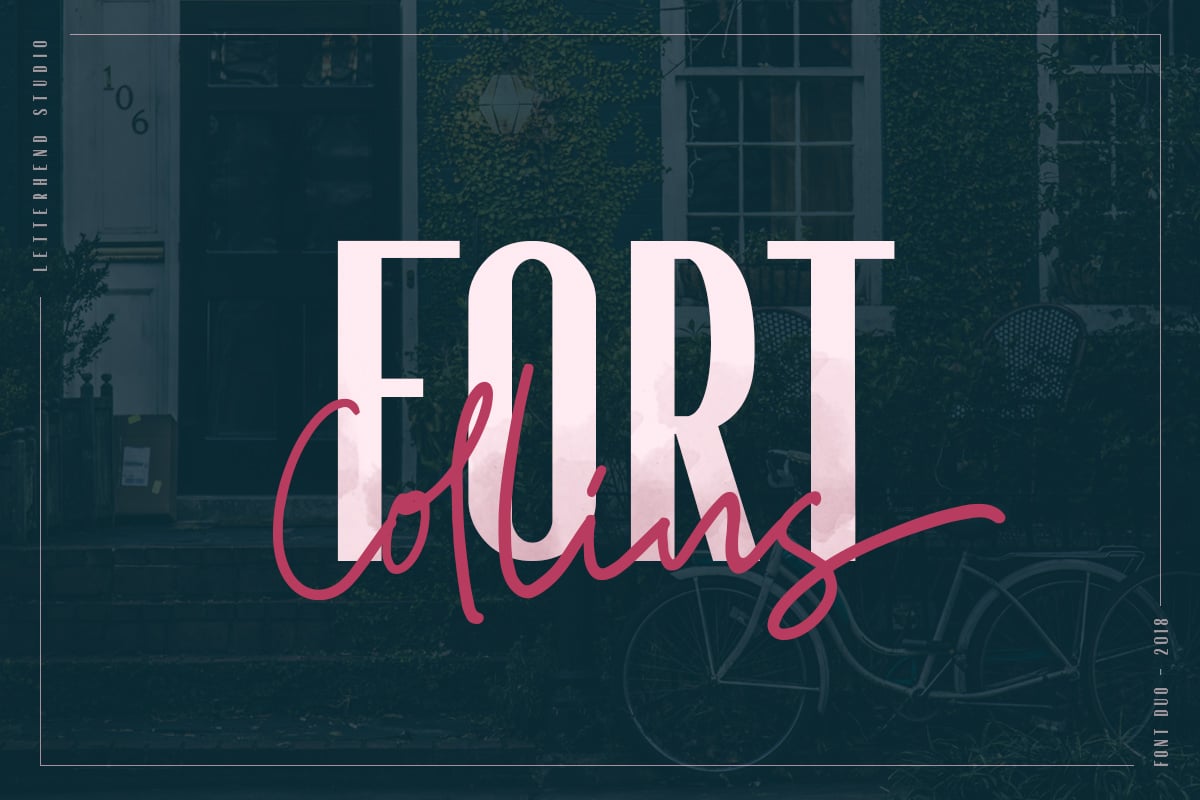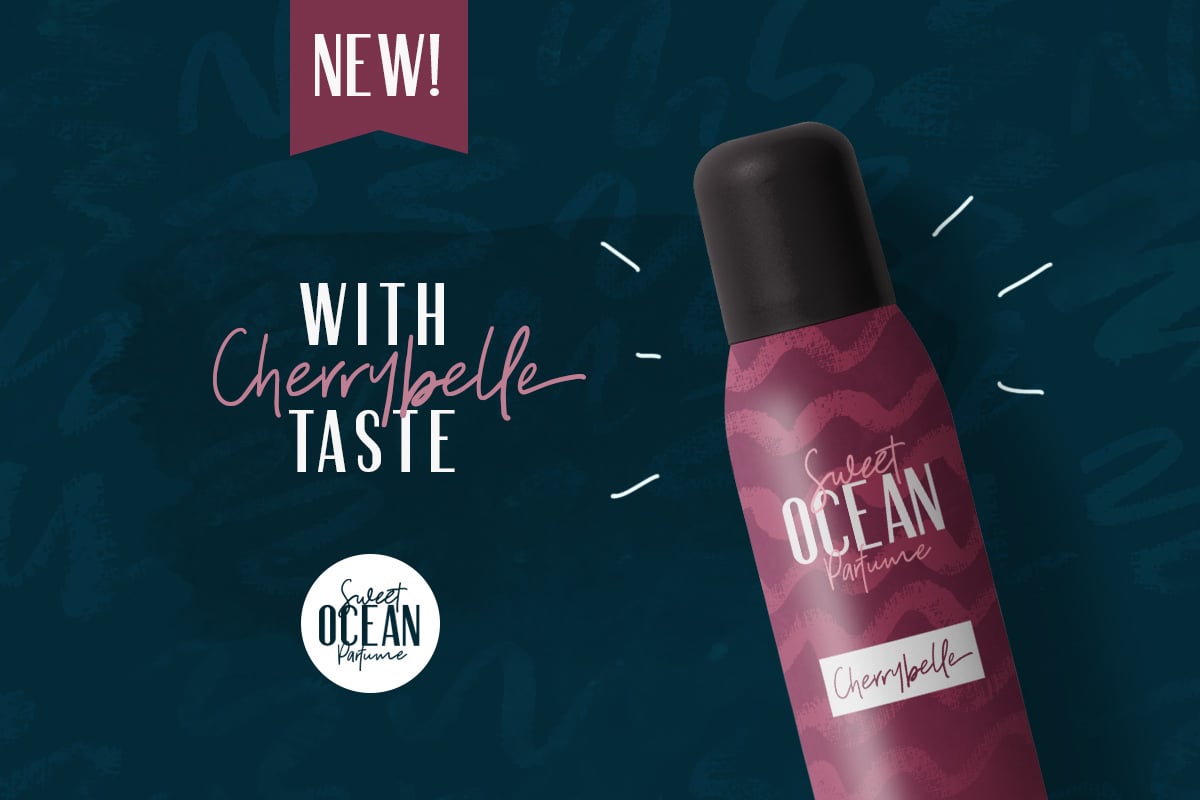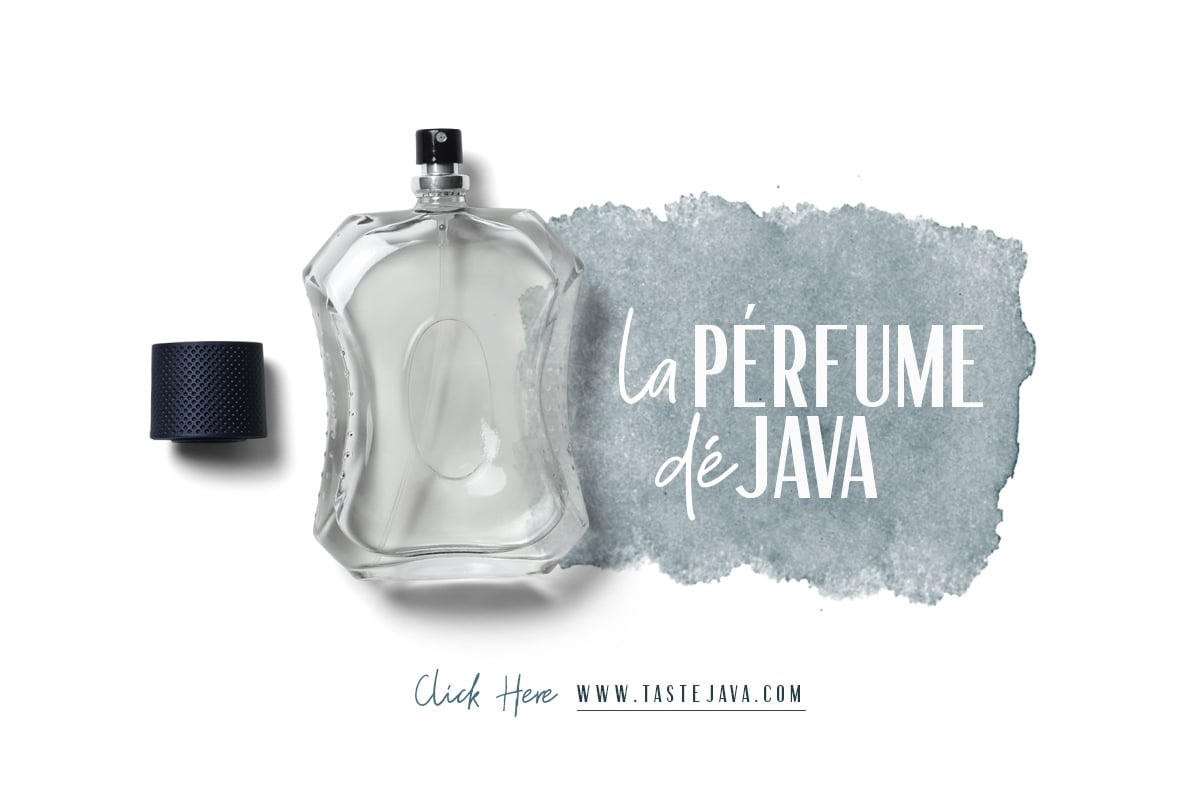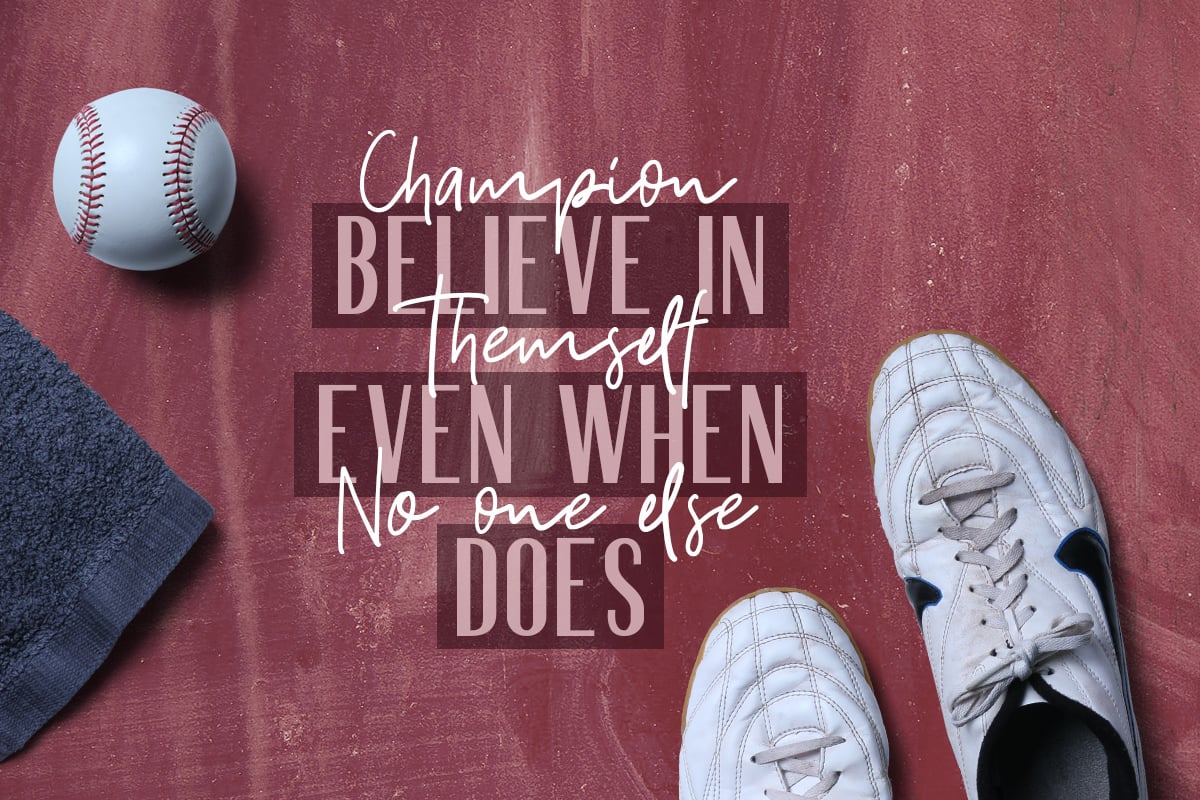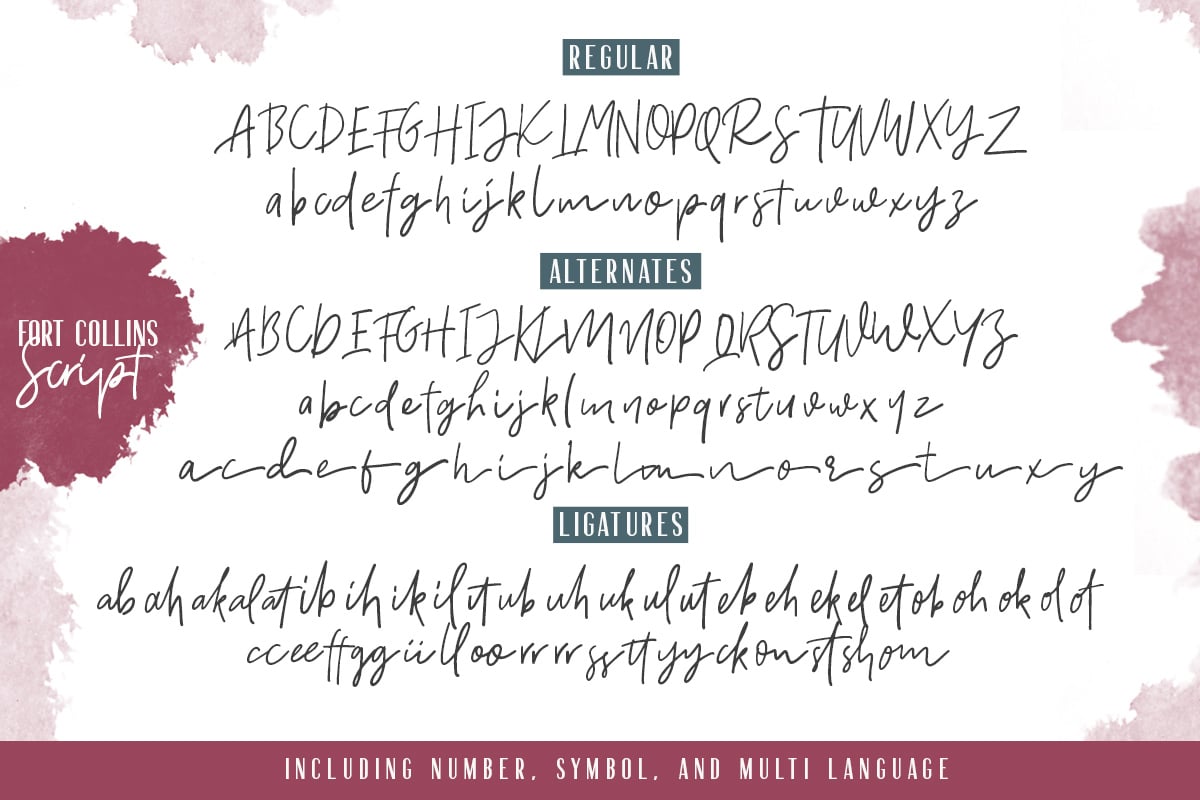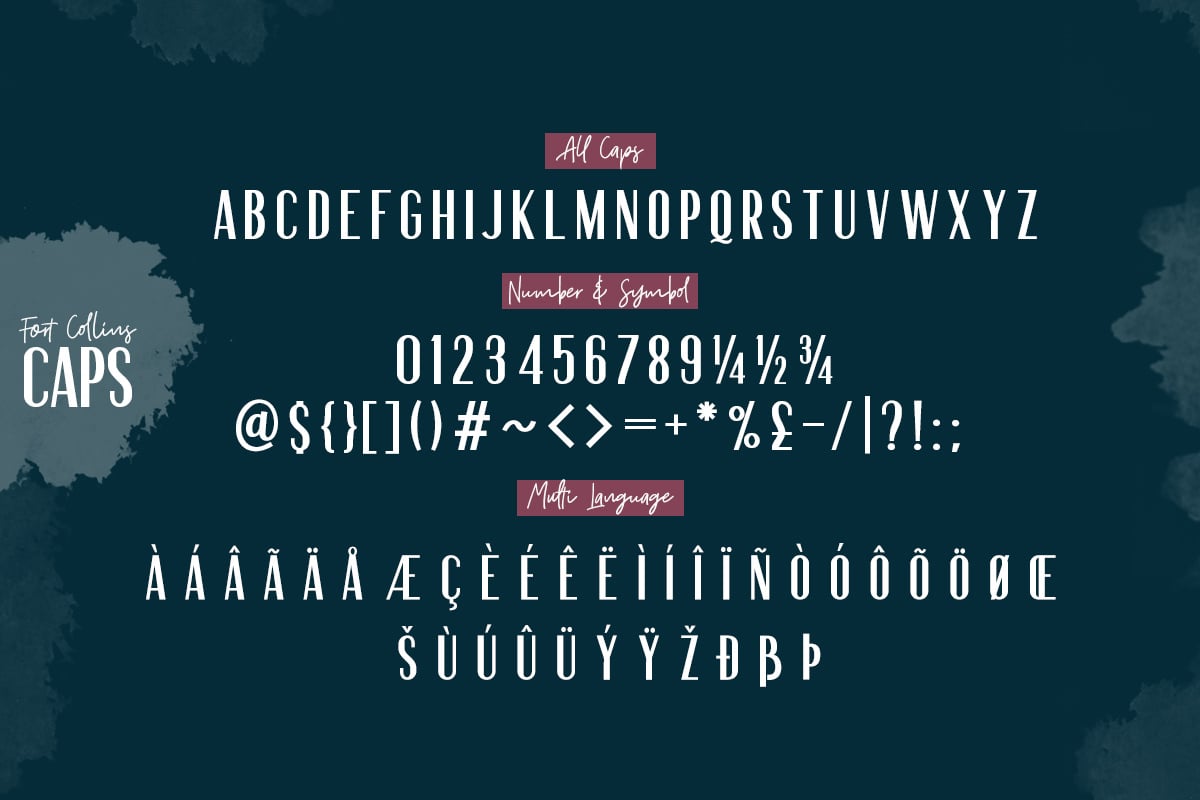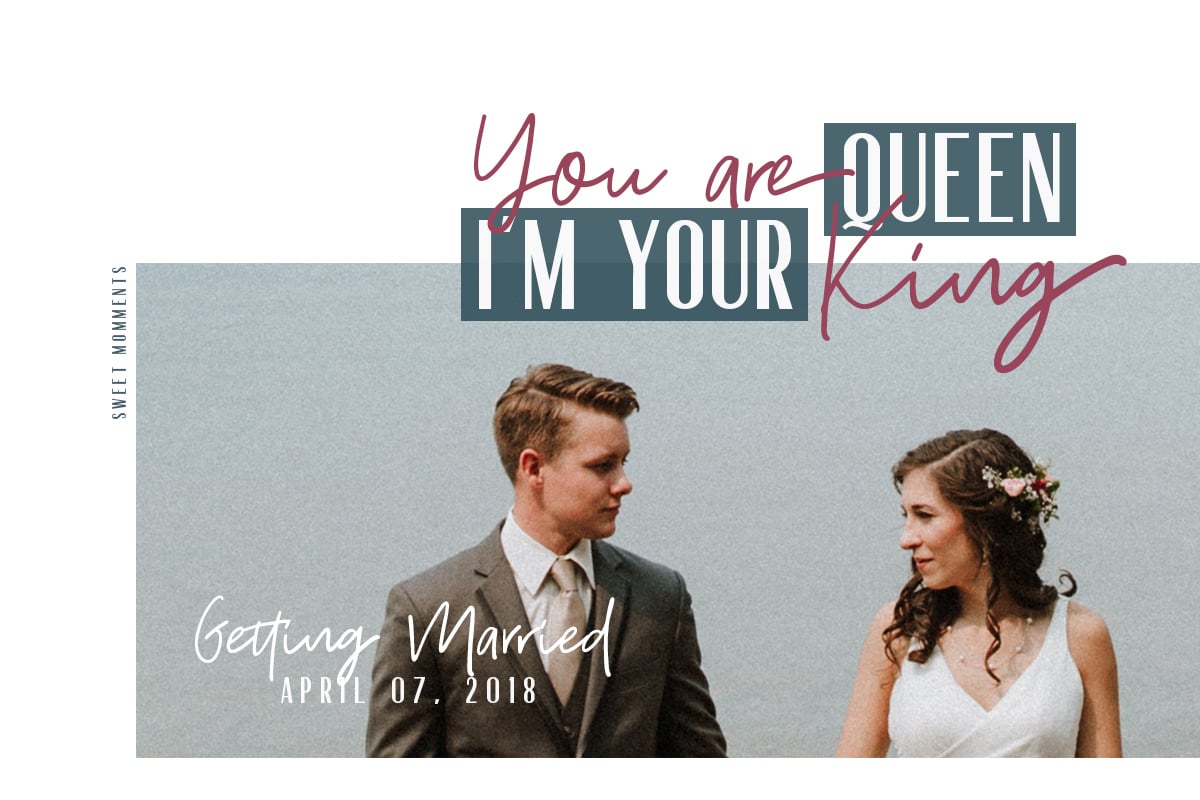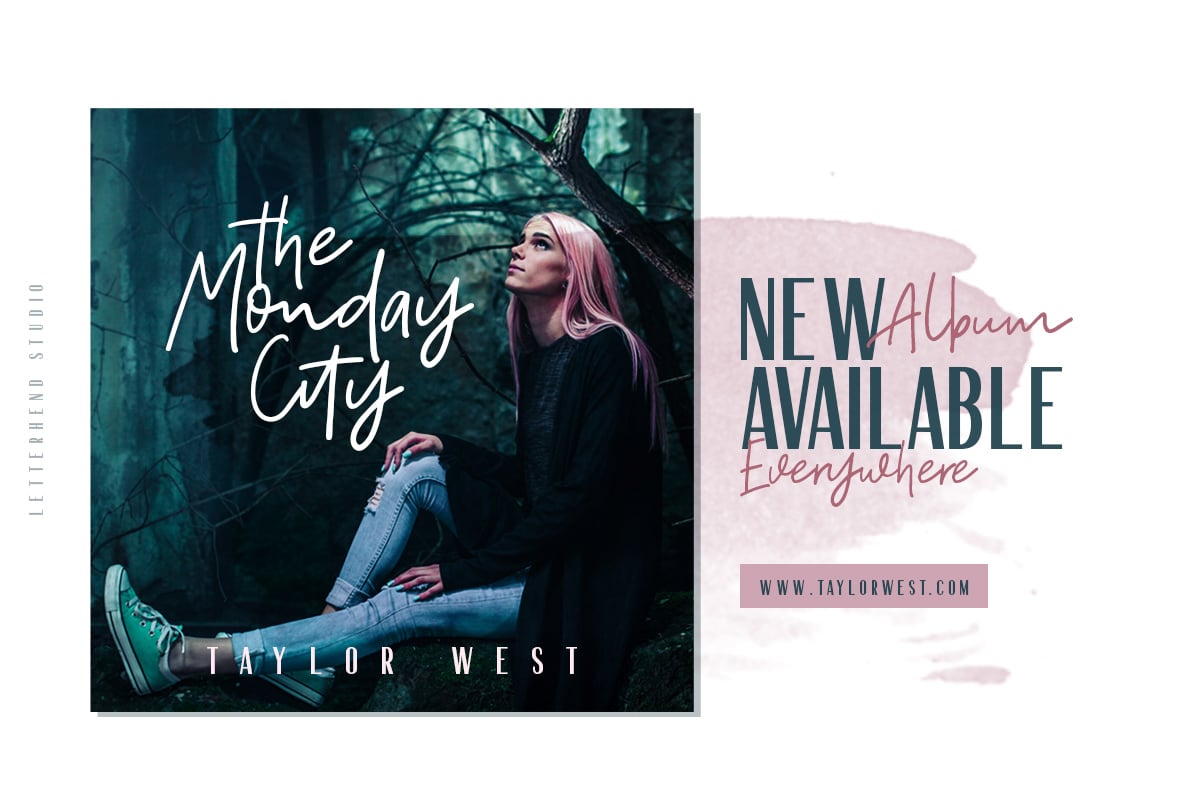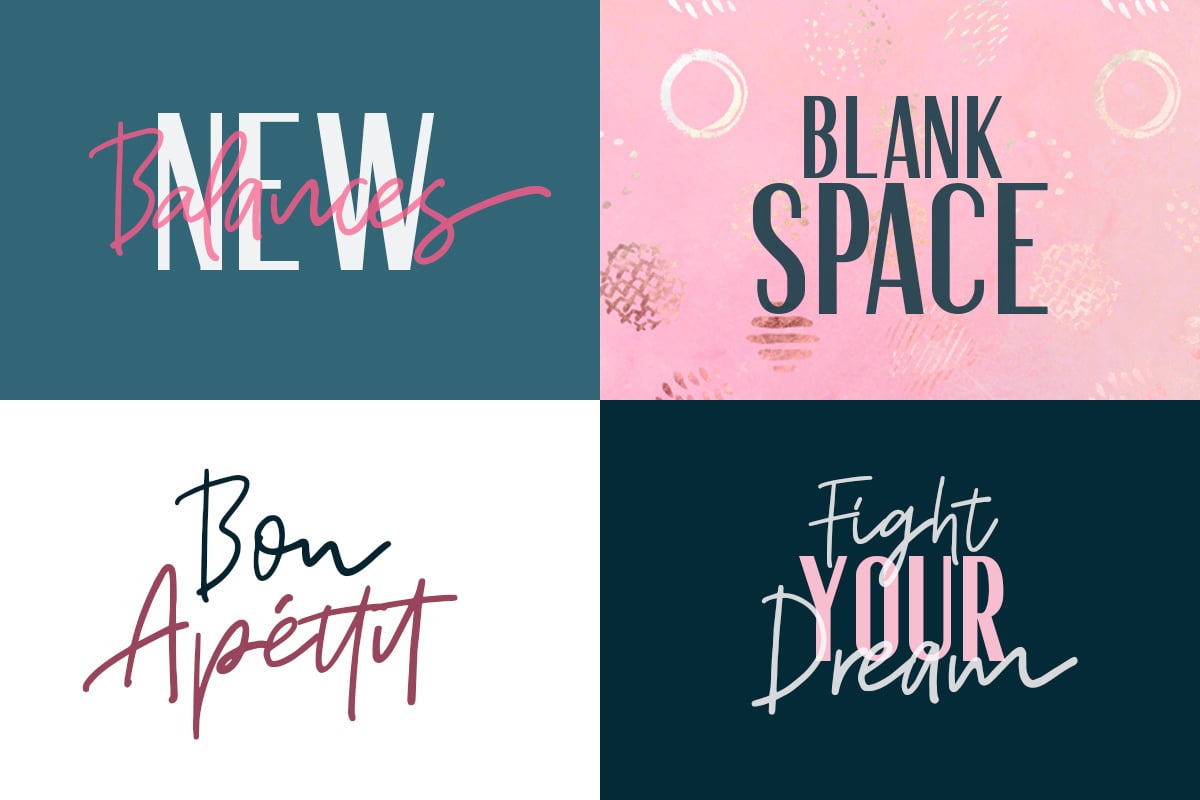
Fort Collins Font Duo
Fort Collins, a pair of font that brings the classy yet casual feel in the same time. The condensed sans combined with the natural hand writing script are the perfect match for you who needs a typeface for headline, logotype, apparel, invitation, branding, packaging, advertising etc. This typeface is comes in uppercase, lowercase, punctuations, symbols & numerals, stylistic set alternate, ligatures, etc also support multilingual.